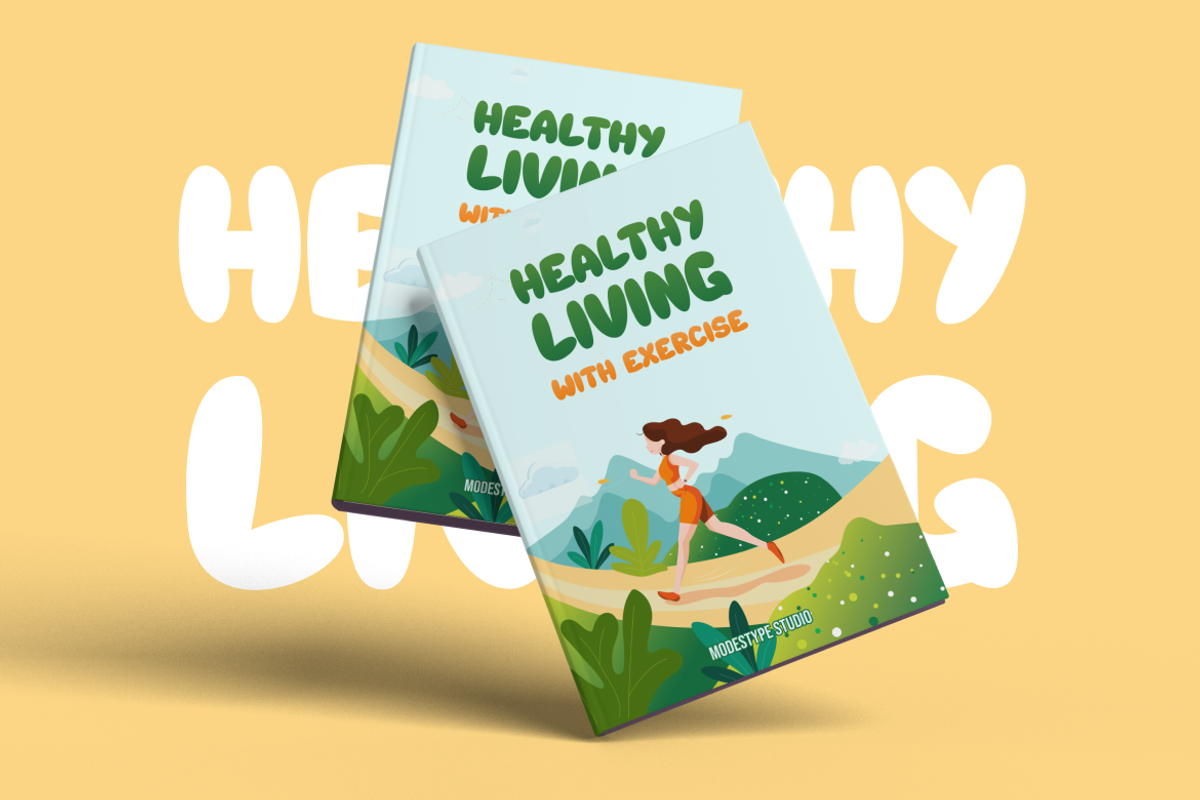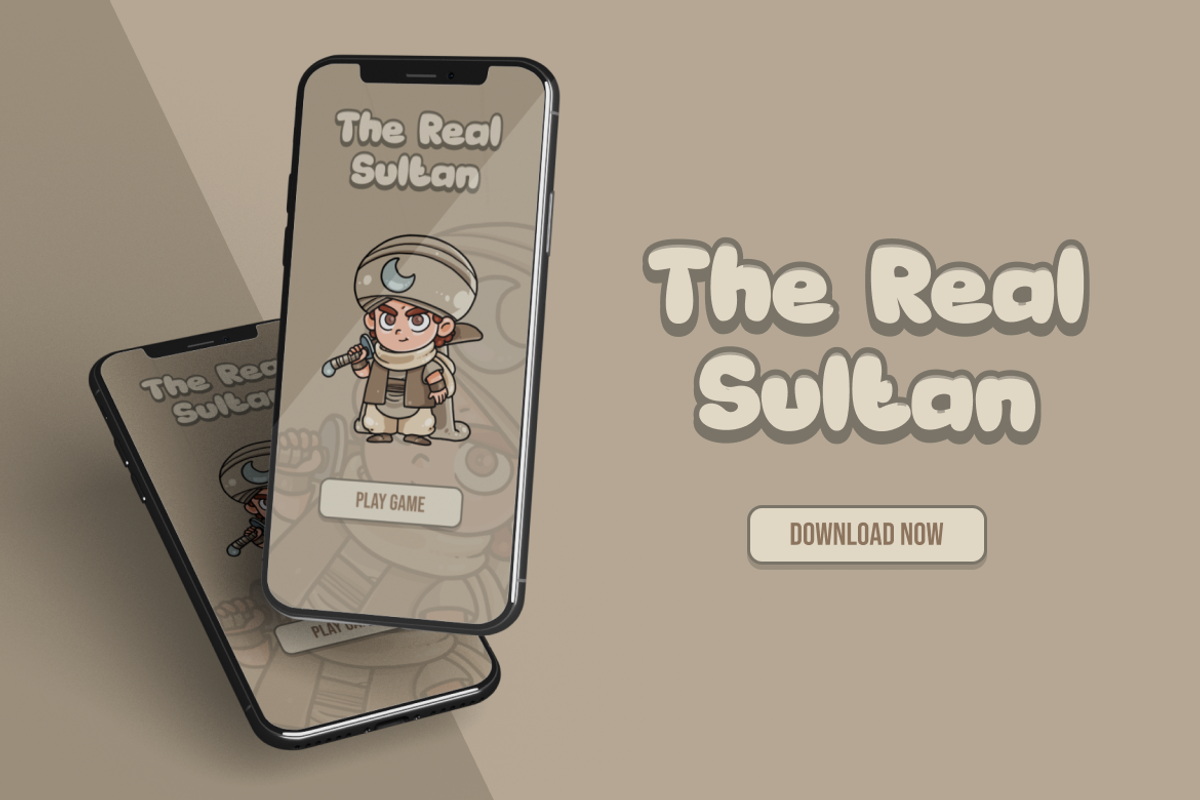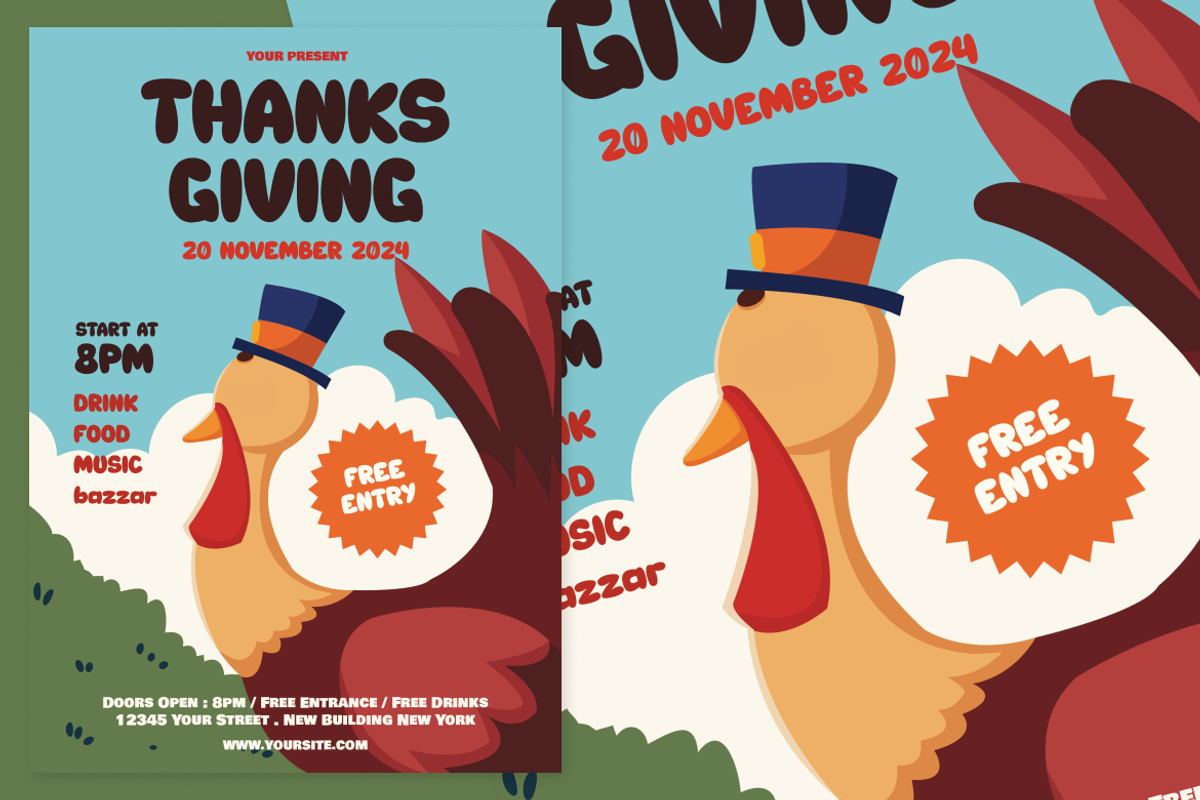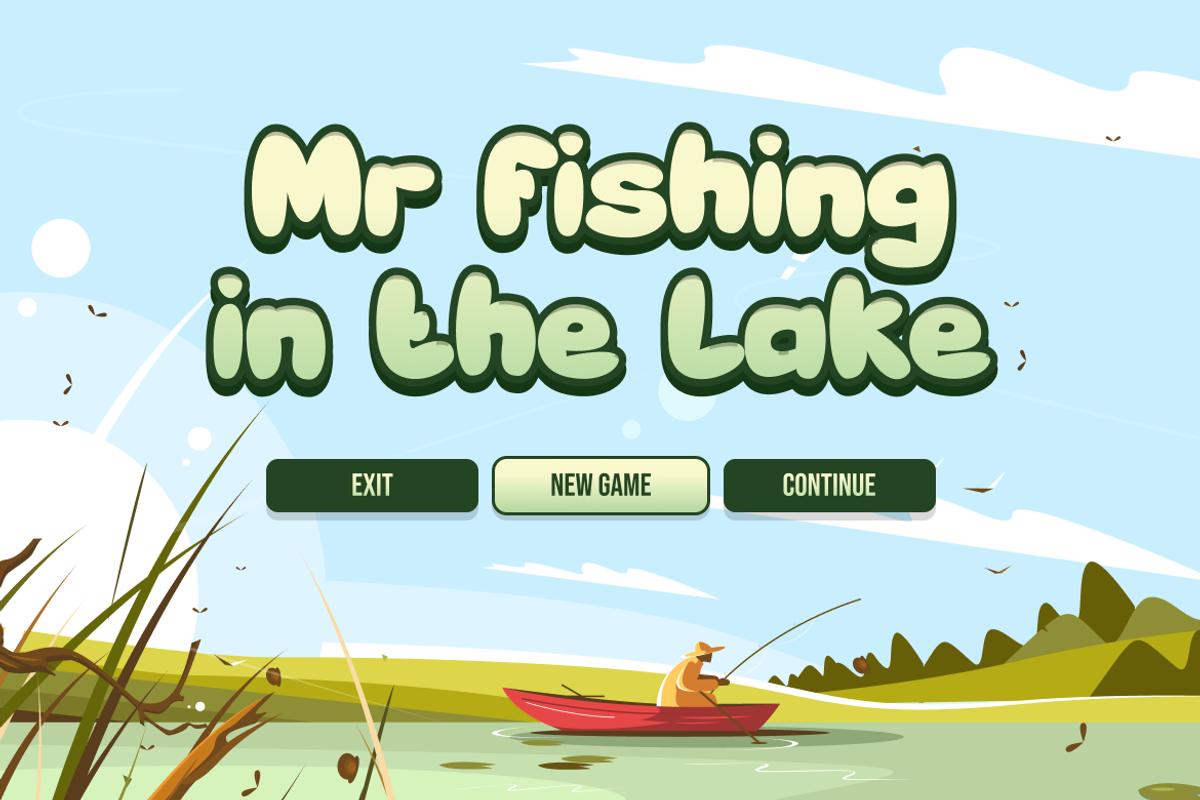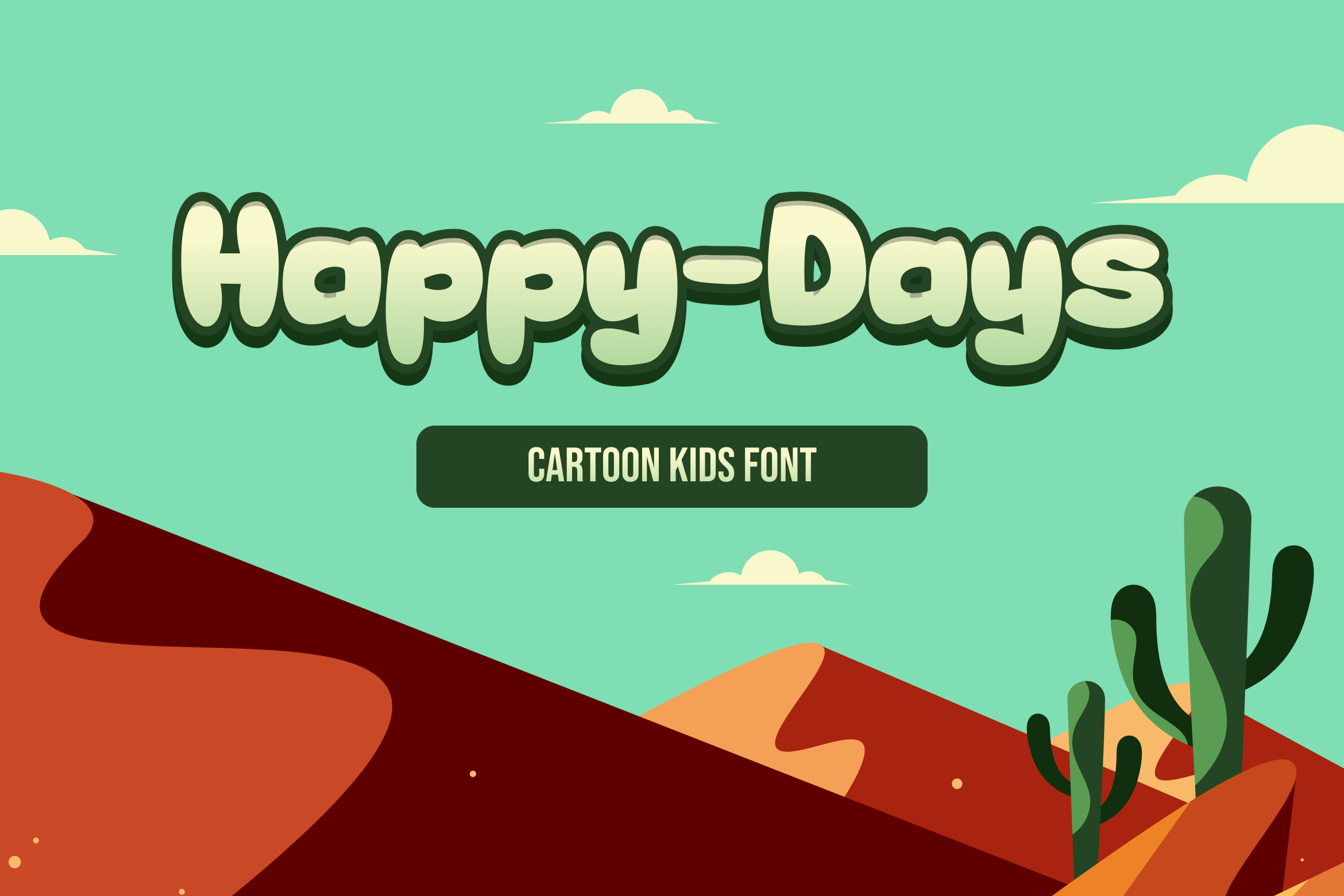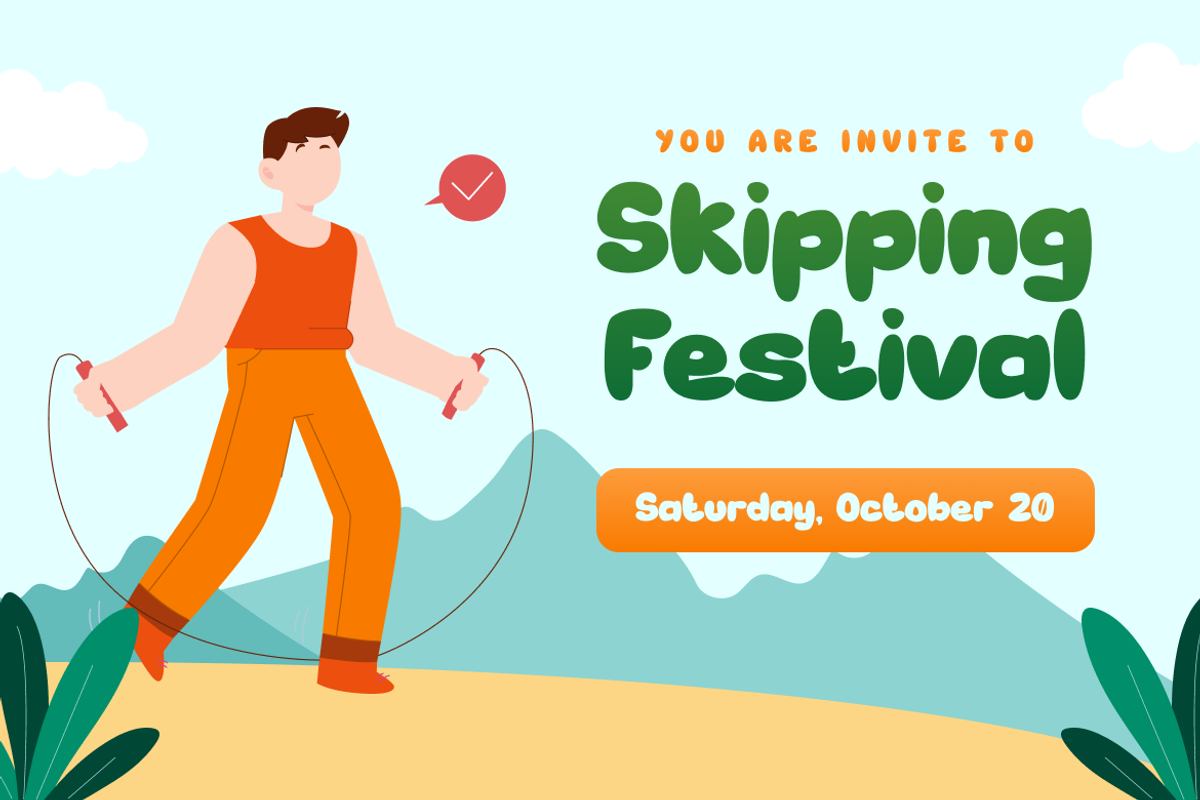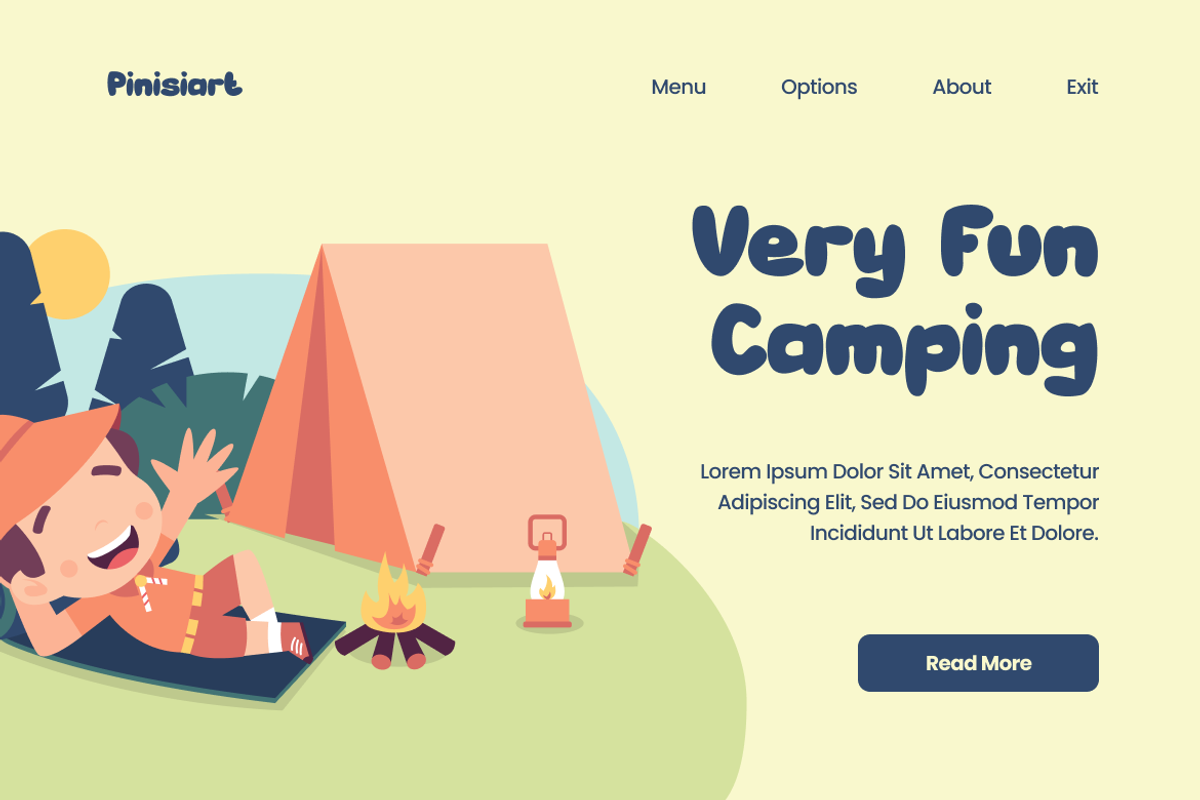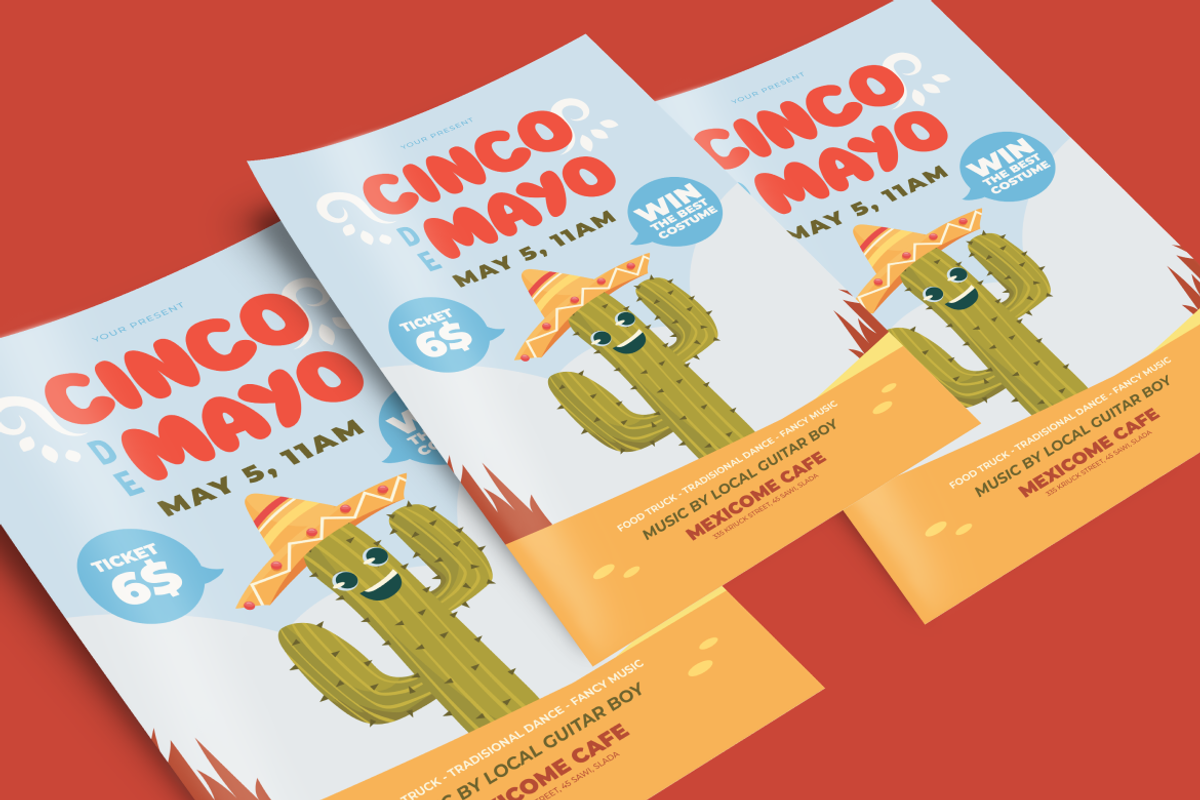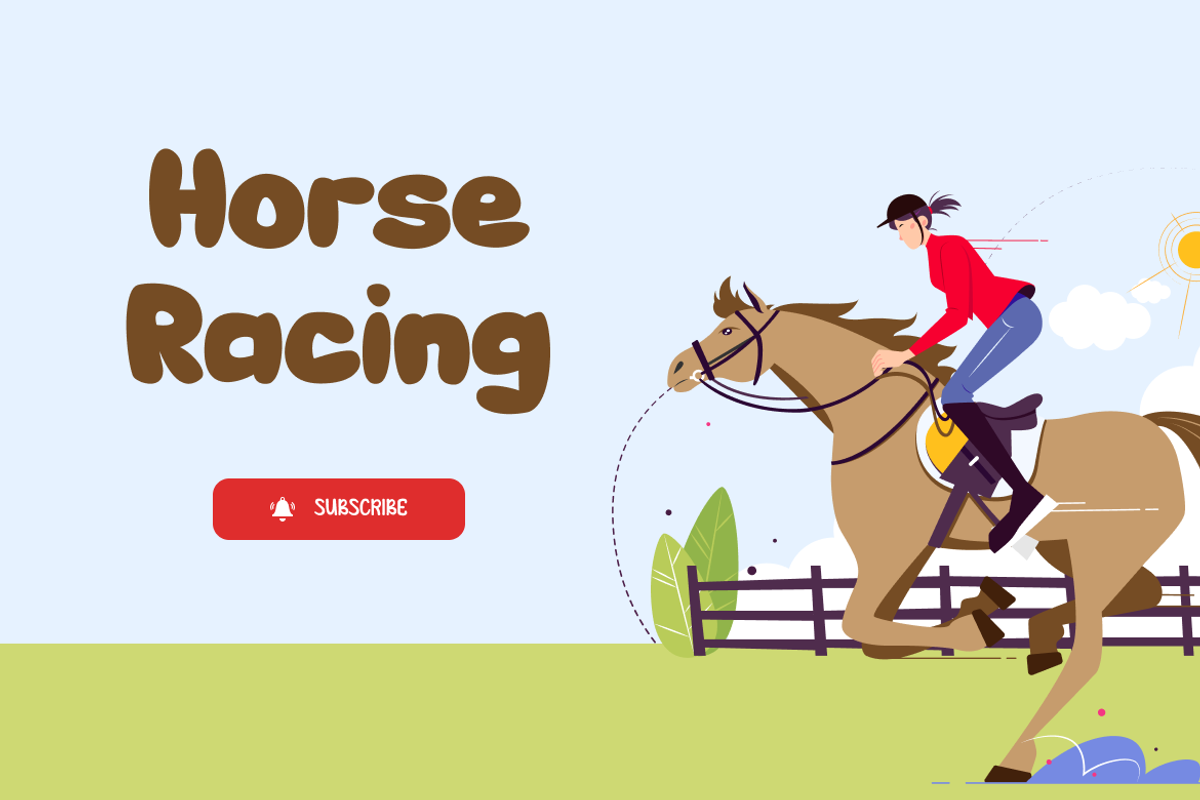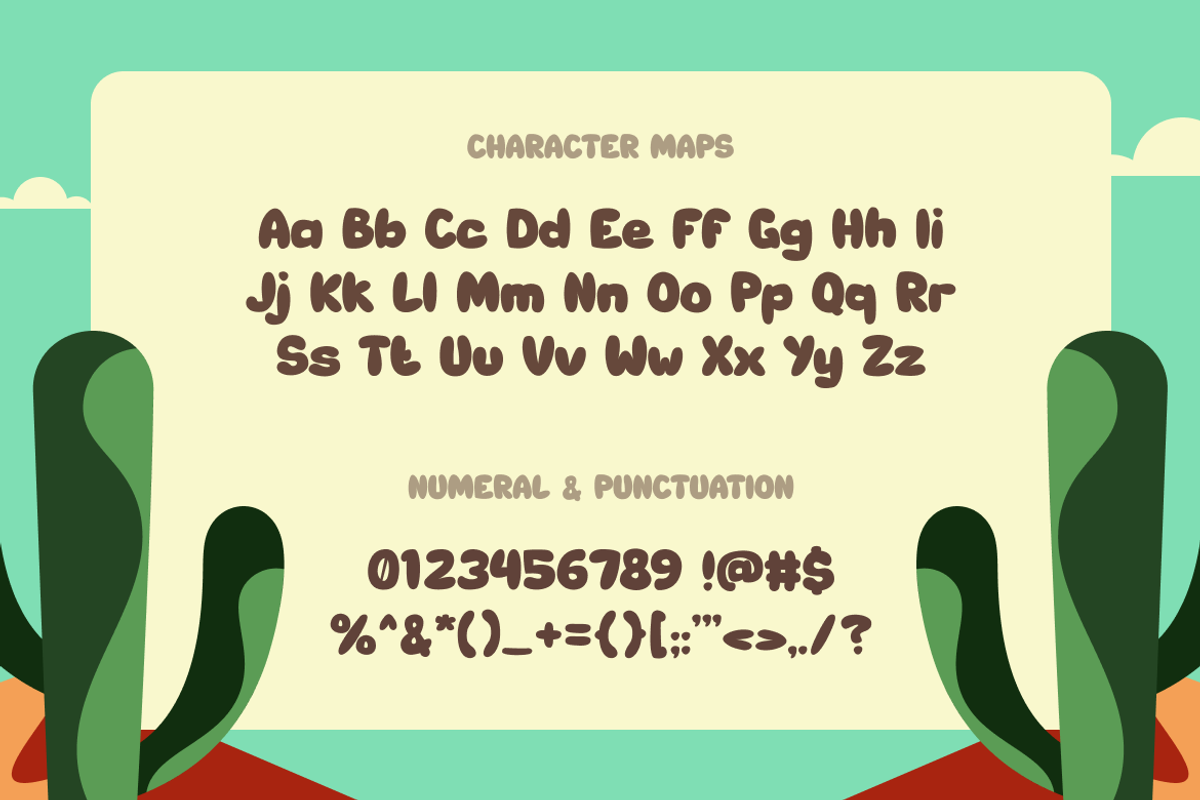
Happy Days – Cartoon Kids Font
Introducing “Happy Days – Cartoon Kids Font,” the perfect addition to your font library! This font is perfect for those looking for a fun and playful display font that’s perfect for a wide range of projects. With its clean, sans-serif design, this font is easy to read, making it a great choice for schools, YouTube channels, and Instagram posts.
“Happy Days – Cartoon Kids Font” is a versatile font that works well in a variety of settings. Its cute and funny design makes it perfect for comic books, movie titles, and gaming fonts, while its playful design makes it an ideal choice for kids’ projects.
This font is also perfect for those who love organic and natural style fonts. “Happy Days – Cartoon Kids Font” comes with plenty of nature foliage and floral designs that are sure to make any project pop. Its playful design and natural elements make it a great choice for school projects, Instagram posts, and more.
Whether you’re a graphic designer, blogger, or just looking for a fun and engaging font, “Happy Days – Cartoon Kids Font” is sure to be a hit. So why not add it to your font collection today and see how it can enhance your projects? Try it out and see for yourself how this font can bring your creative vision to life!